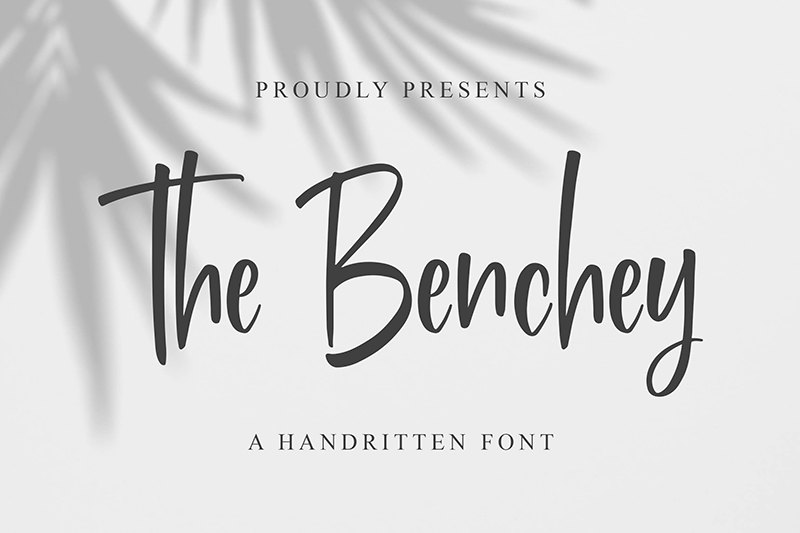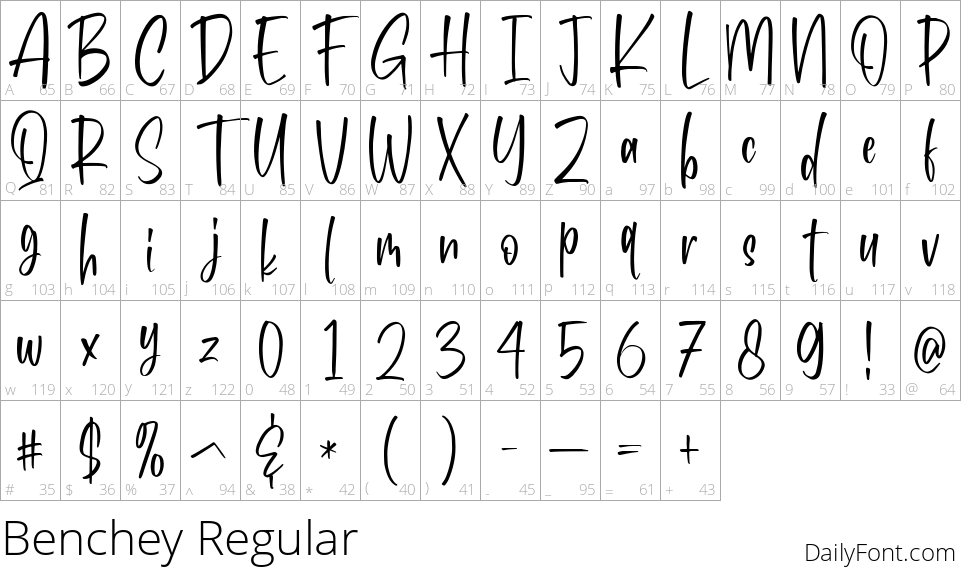
Benchey
Benchey is a summery and light display font that feels easy and charming. Its friendly vibe invites readers and instantly sets a welcoming tone. This typeface shines in headline work, social graphics, and branding where a breezy, optimistic mood matters. With airy letterforms and gentle curves, Benchey adds character without sacrificing legibility, making it a versatile choice for playful campaigns, invitations, and editorial layouts.
Designed for large-scale use, Benchey excels in headlines, posters, and hero images while still performing in shorter display contexts. The font's spacing and rhythm help create a clean, memorable wordmark that pairs well with clean sans-serifs for body text. Whether you're crafting a summer promotion, a lifestyle blog, or a brand identity, Benchey offers a friendly, approachable personality that resonates with a wide audience.